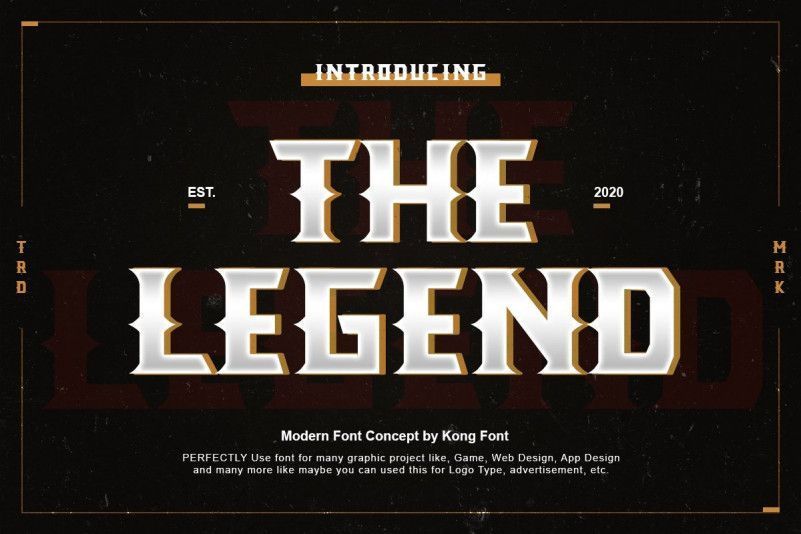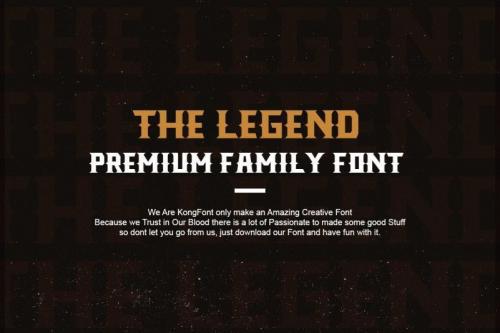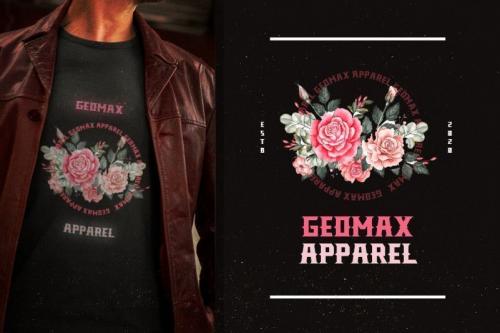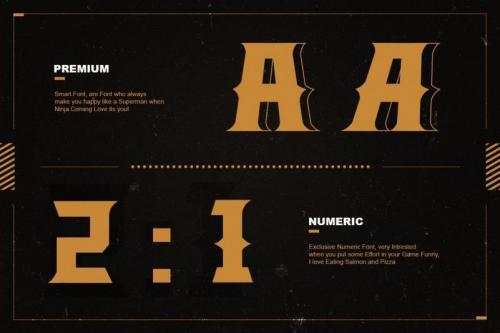
The Legend is a display font, designed by FontKong. Inspired by american western culture and tattoos, is perfect to use in vintage-themed designs.
Get inspired by its authentic feel and use it to create awesome posters, logos, postcards and more.